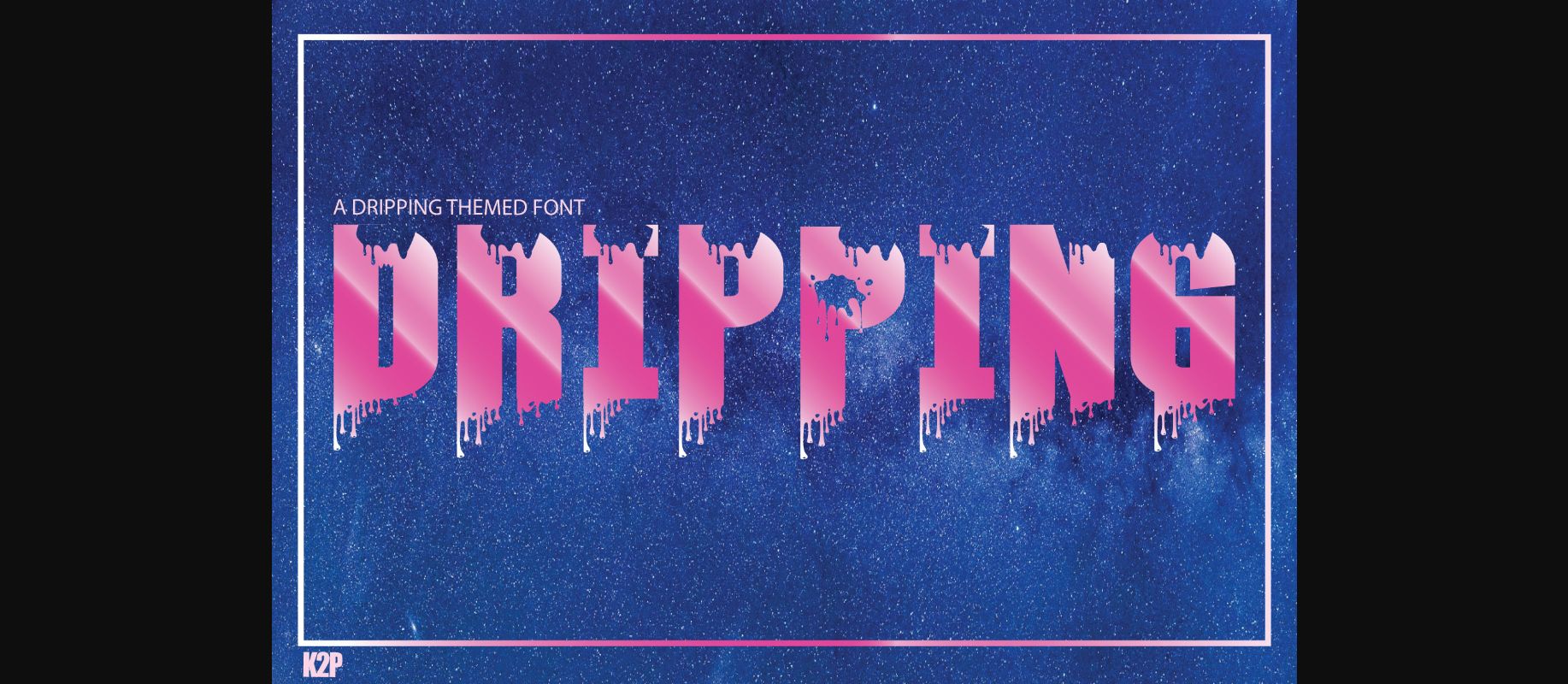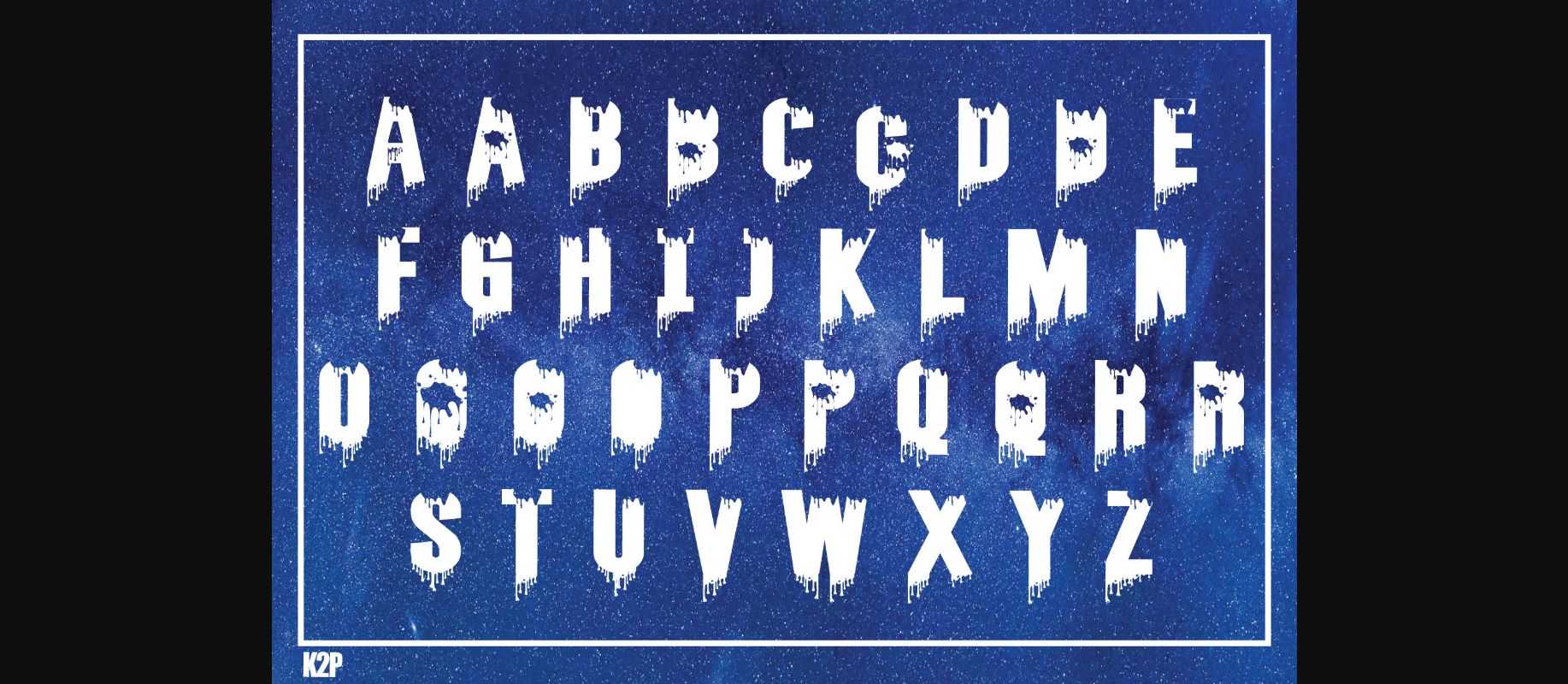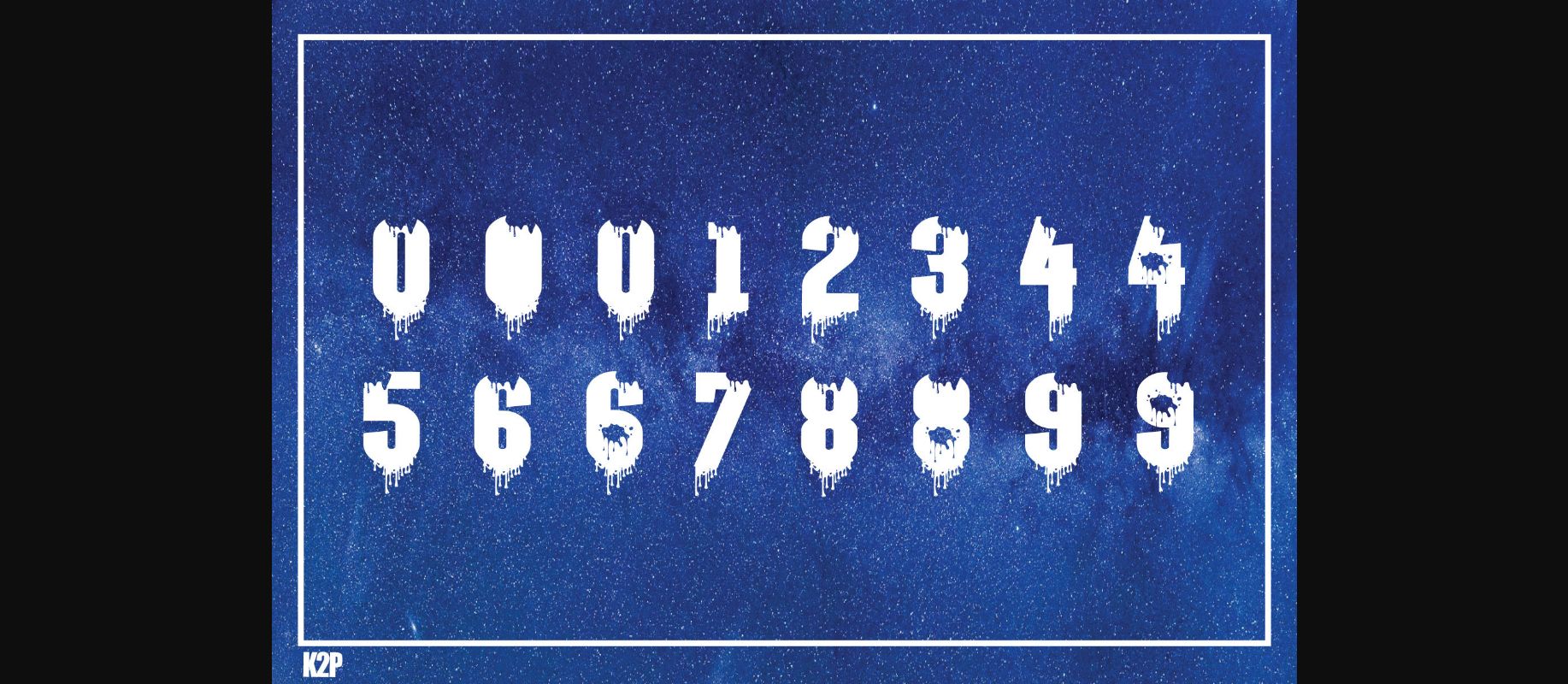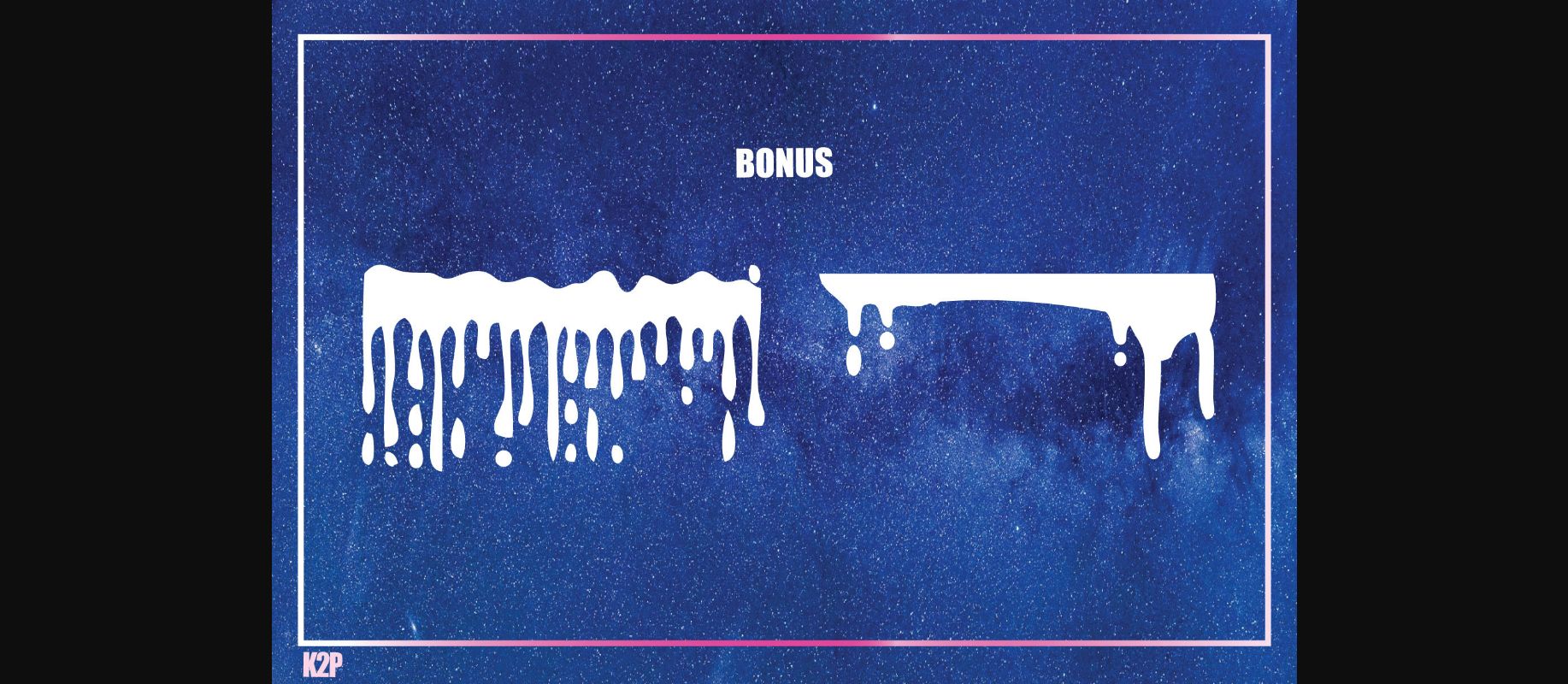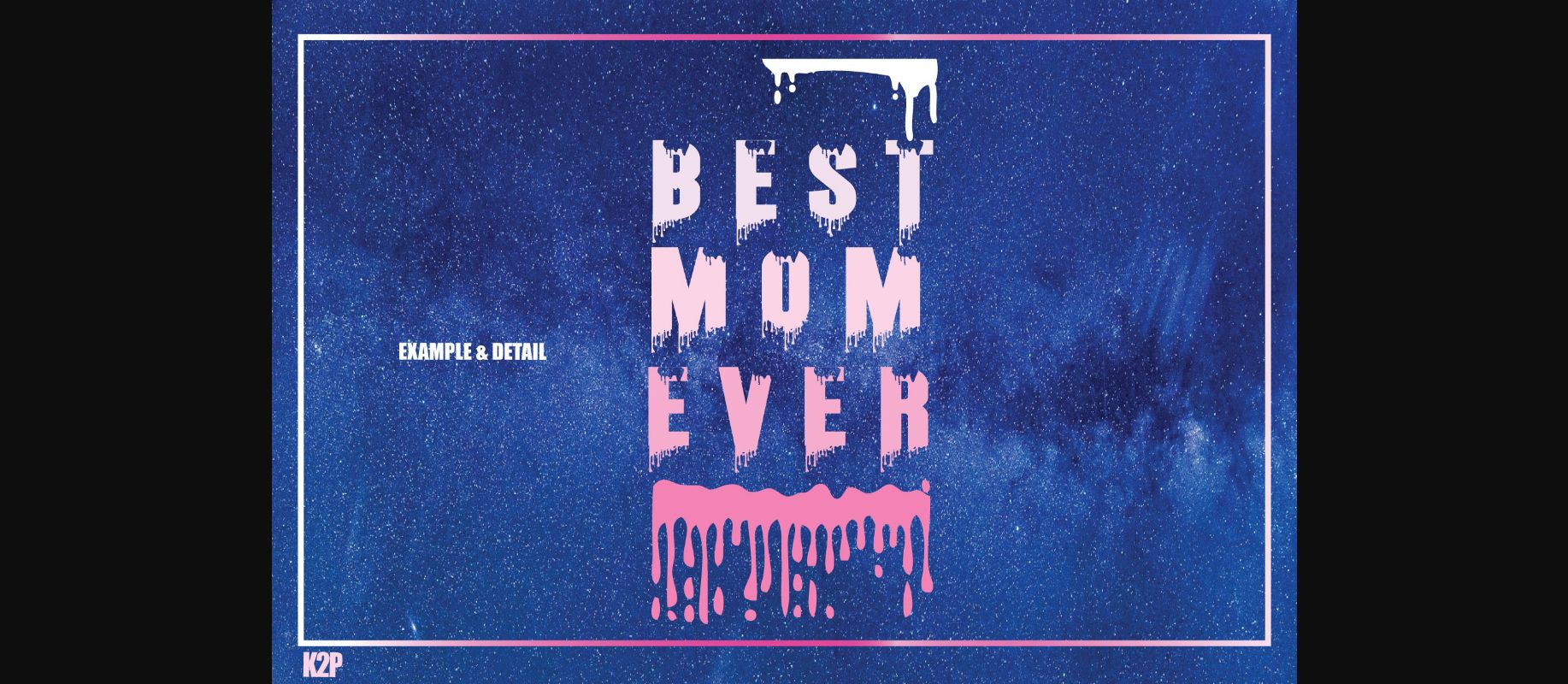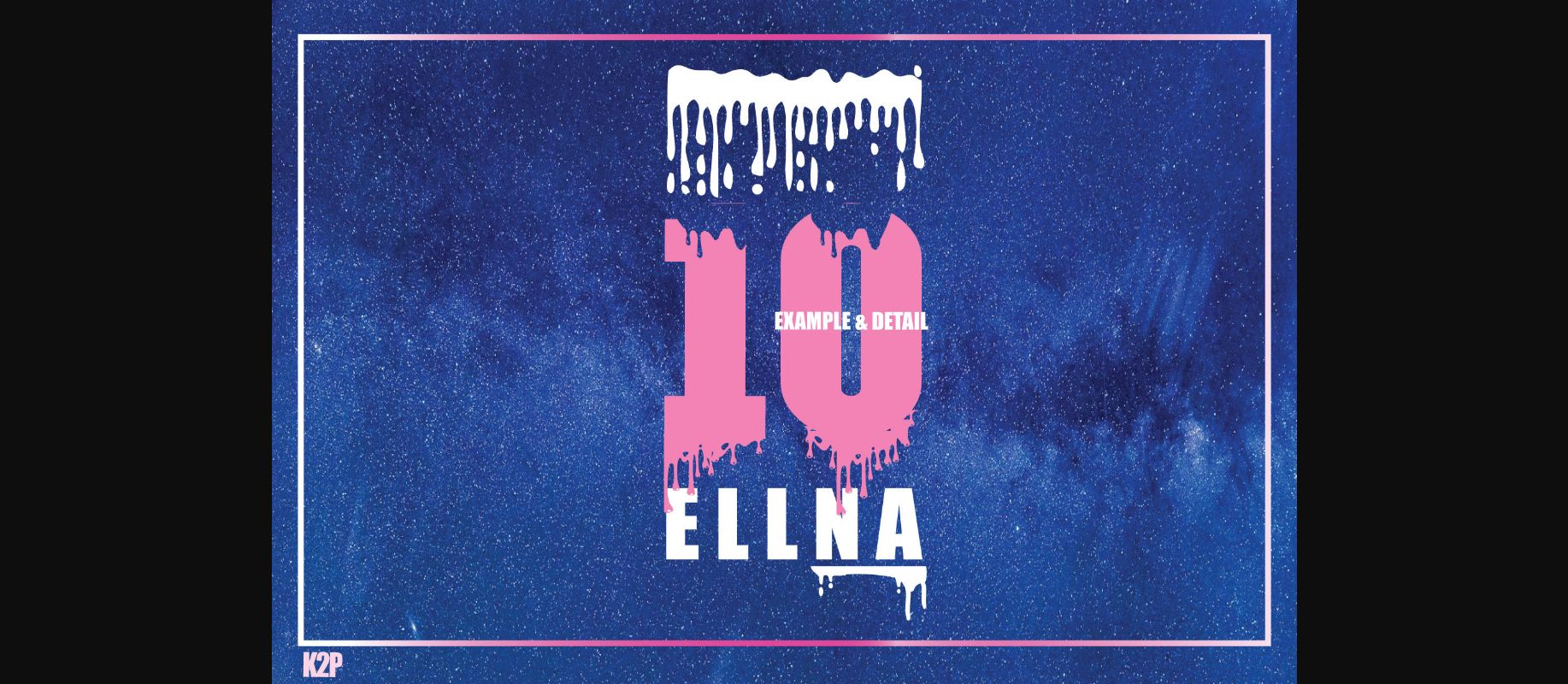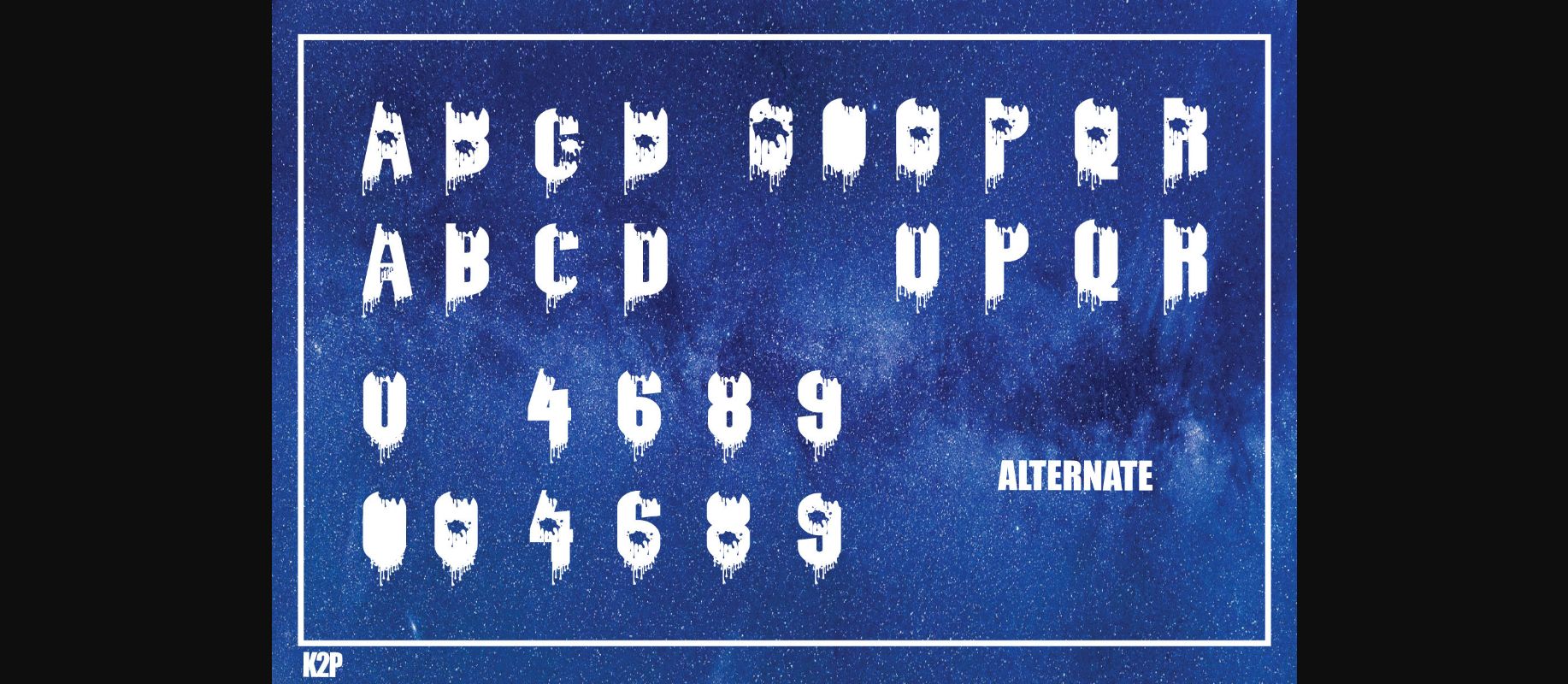
Dripping Font
About Dripping Font
Dripping is a thick lettered yet unique and original decorative font that can be used for a variety of quotes or teaching material! Its authentic look will add a personal and realistic feel to your designs. This font is PUA encoded which means you can access all of the glyphs and swashes with ease.